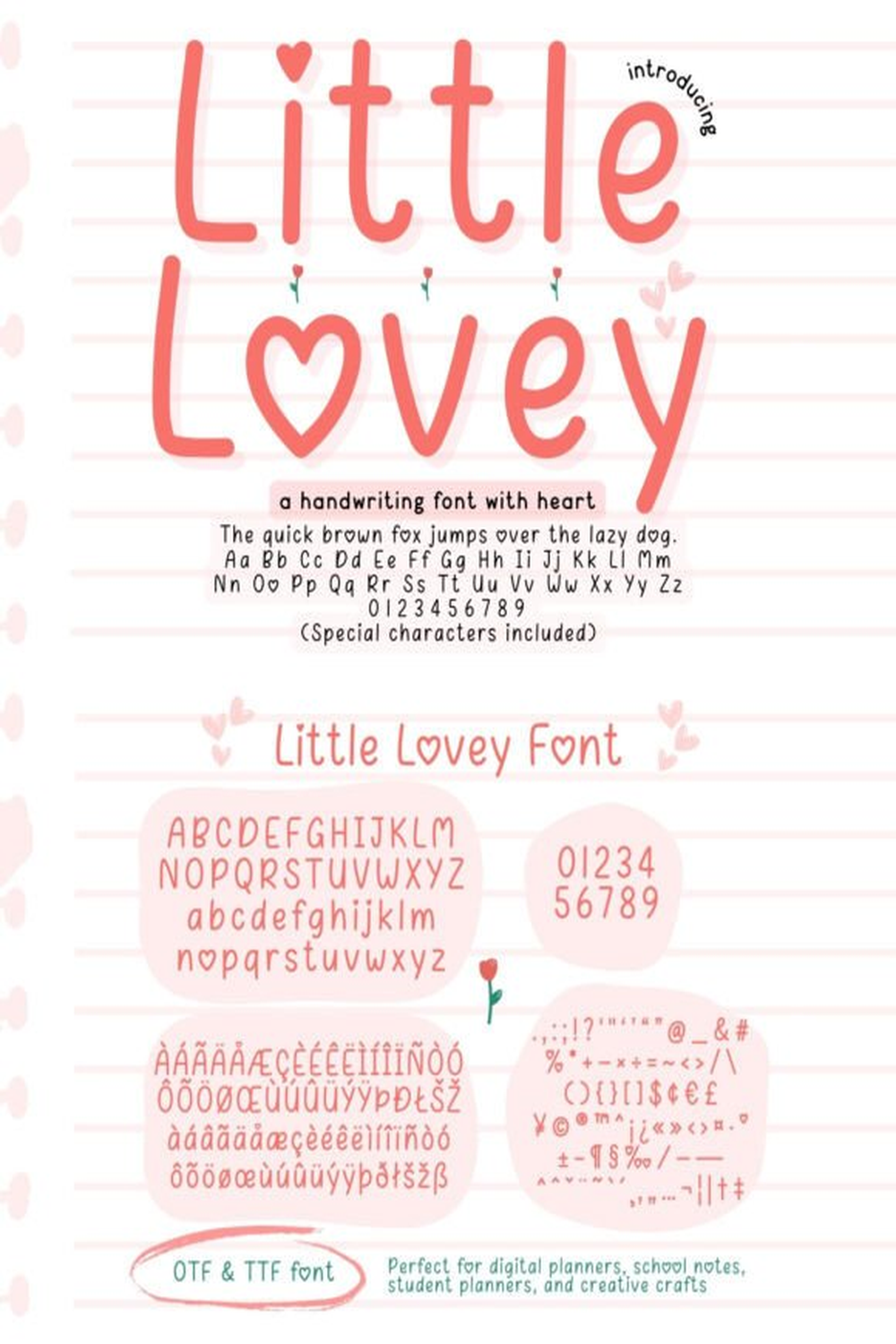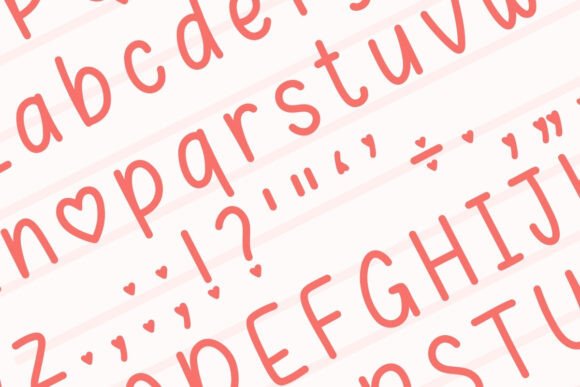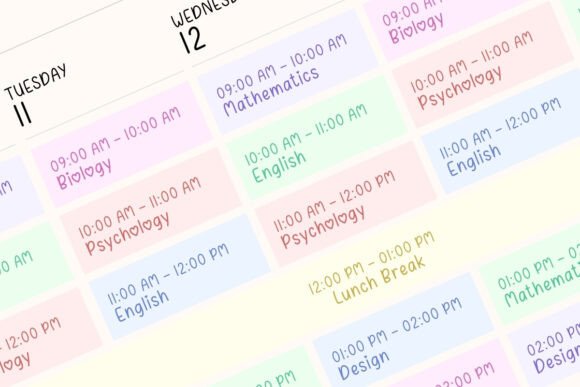
Little Lovey Font
About the Little Lovey Font
Step up your design game with Little Lovey Font, a font that exudes confidence and style. Introducing Little Lovey, a charming and playful handwriting font with a touch of love! Featuring adorable heart details, this font is perfect for adding sweetness to school notes, student planners, digital projects, and more.
Whether you’re using it for note-taking, journaling, crafting, or designing in apps like GoodNotes, Procreate, or Canva, Little Lovey brings warmth and cuteness to your work.
✨Cute and whimsical handwritten style
✨Heart-themed accents for a lovely touch
✨Includes uppercase, lowercase, numbers, and special characters